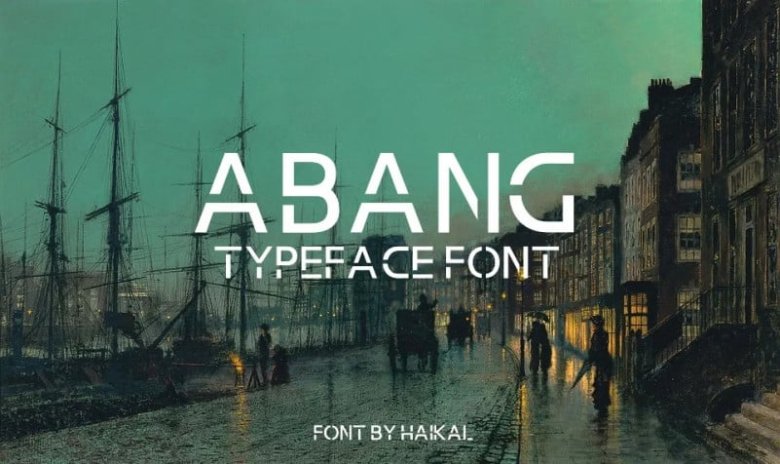
Abang Font
Abang Display Font is a clean and simple display font created by Graphicfresh with minimal, modern,and futuristic style. Abang Font Good for projects such as logo design, branding, web design, packaging, social media, and so much more! It contains an uppercase alphabet with numbers and symbols.